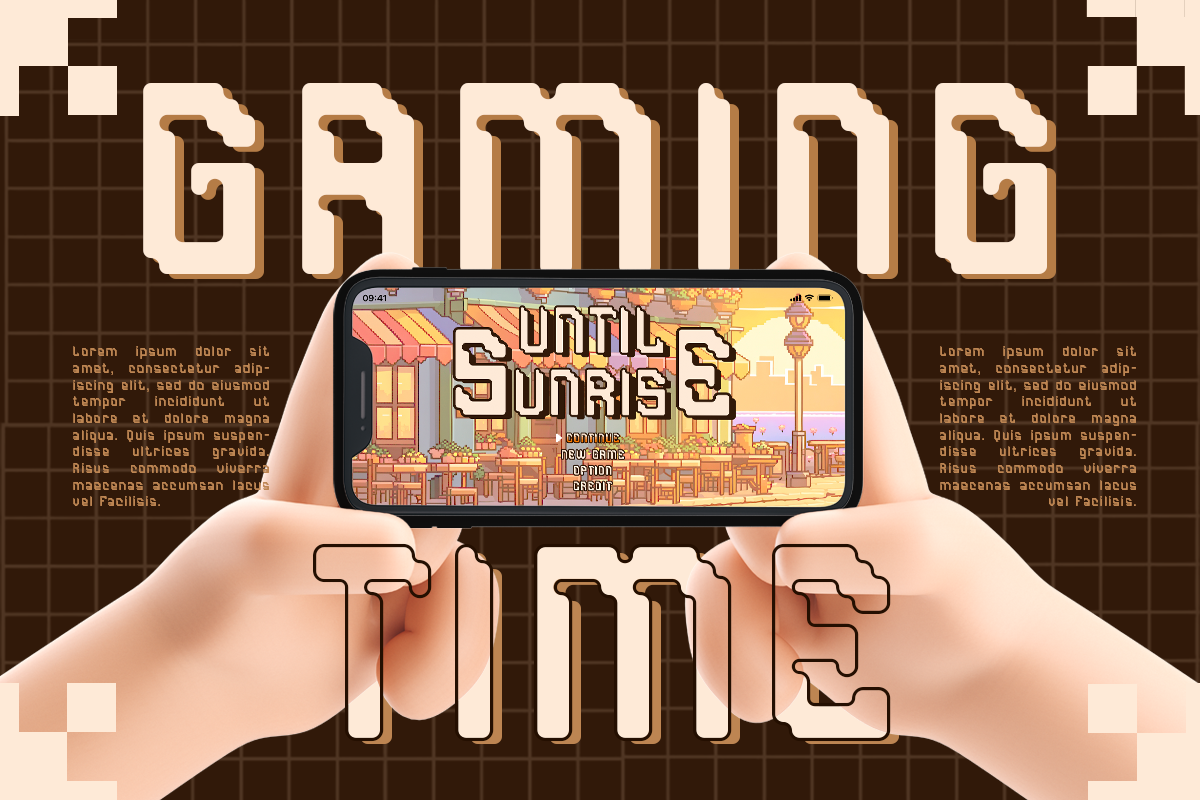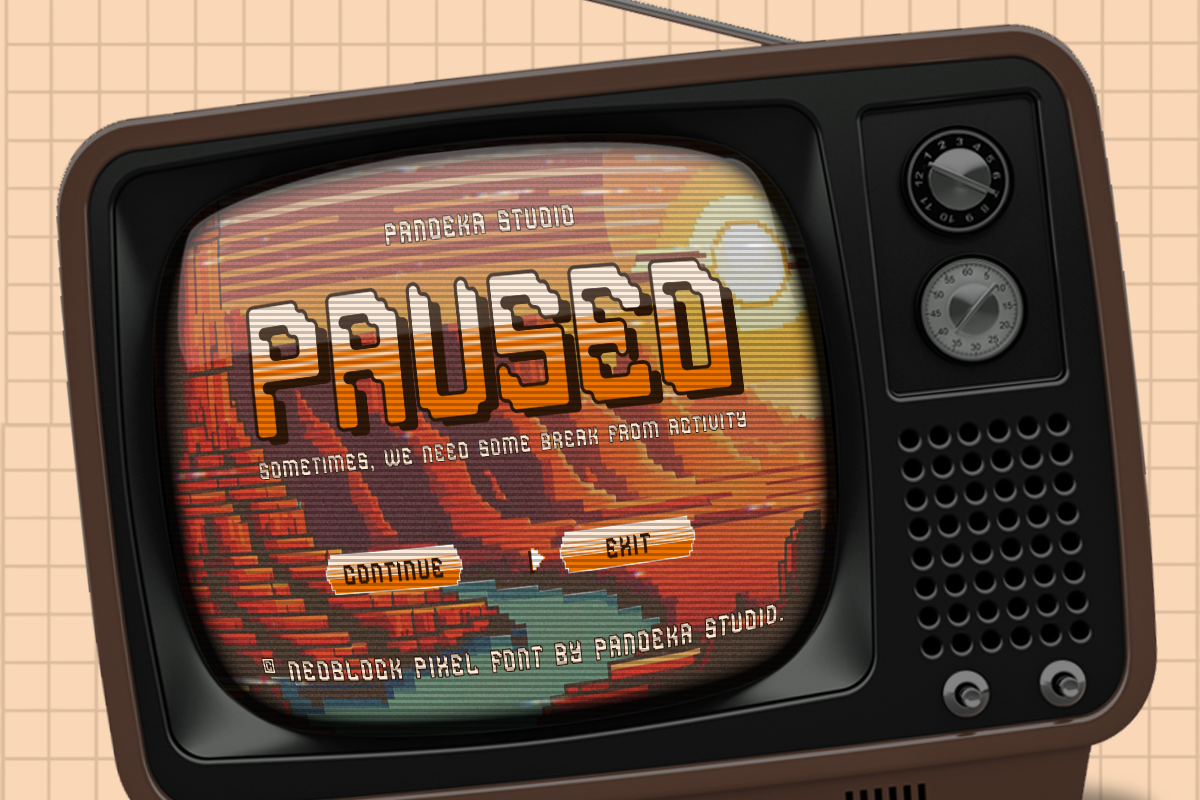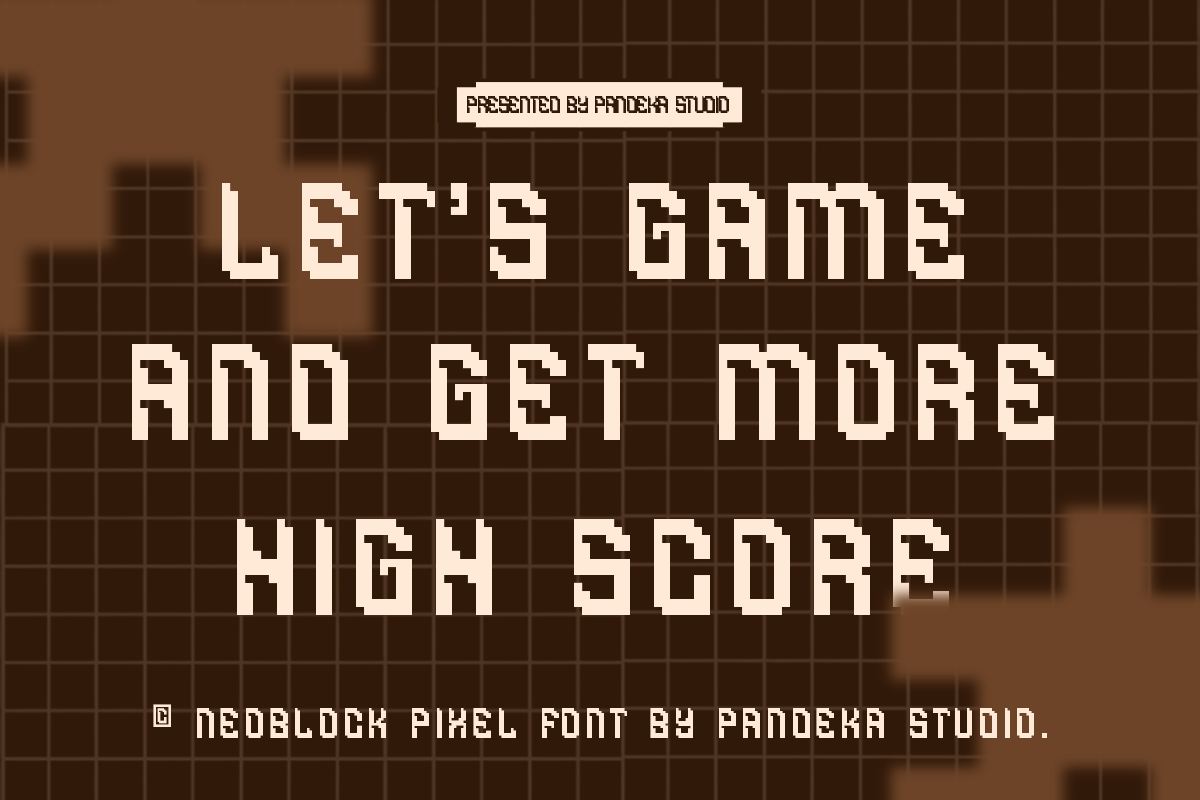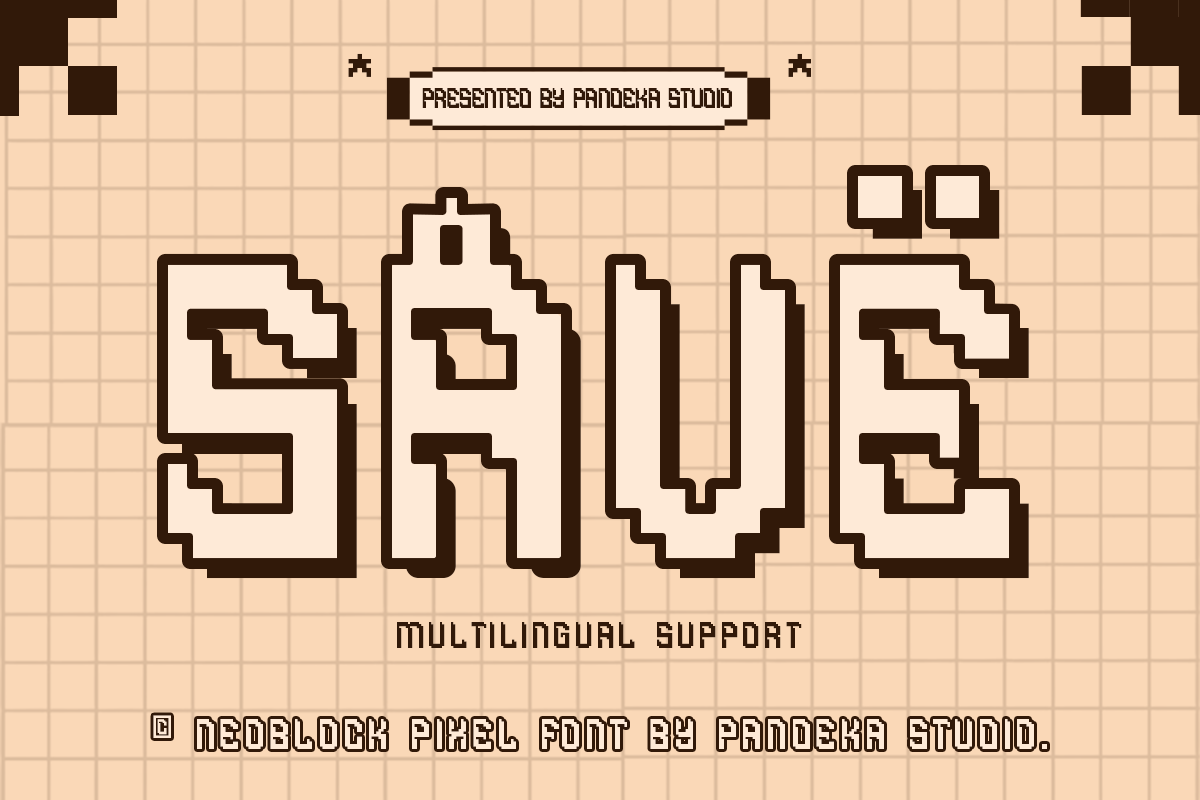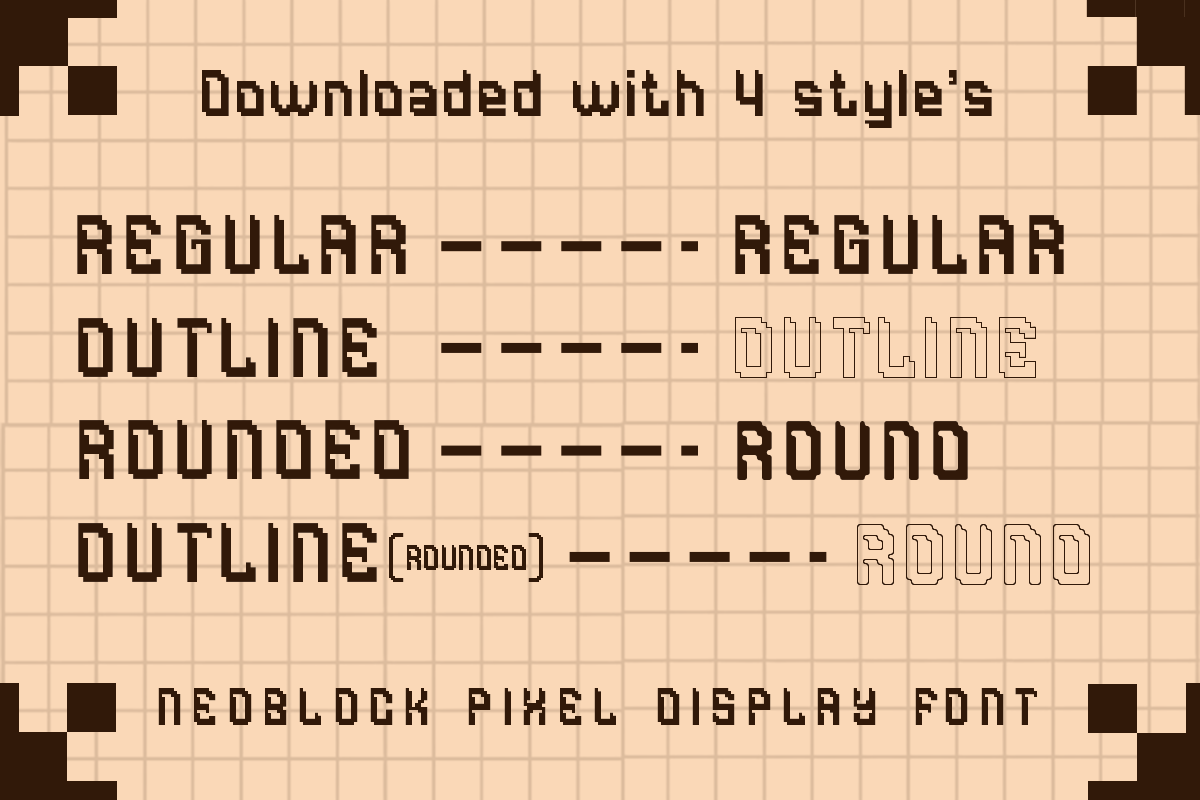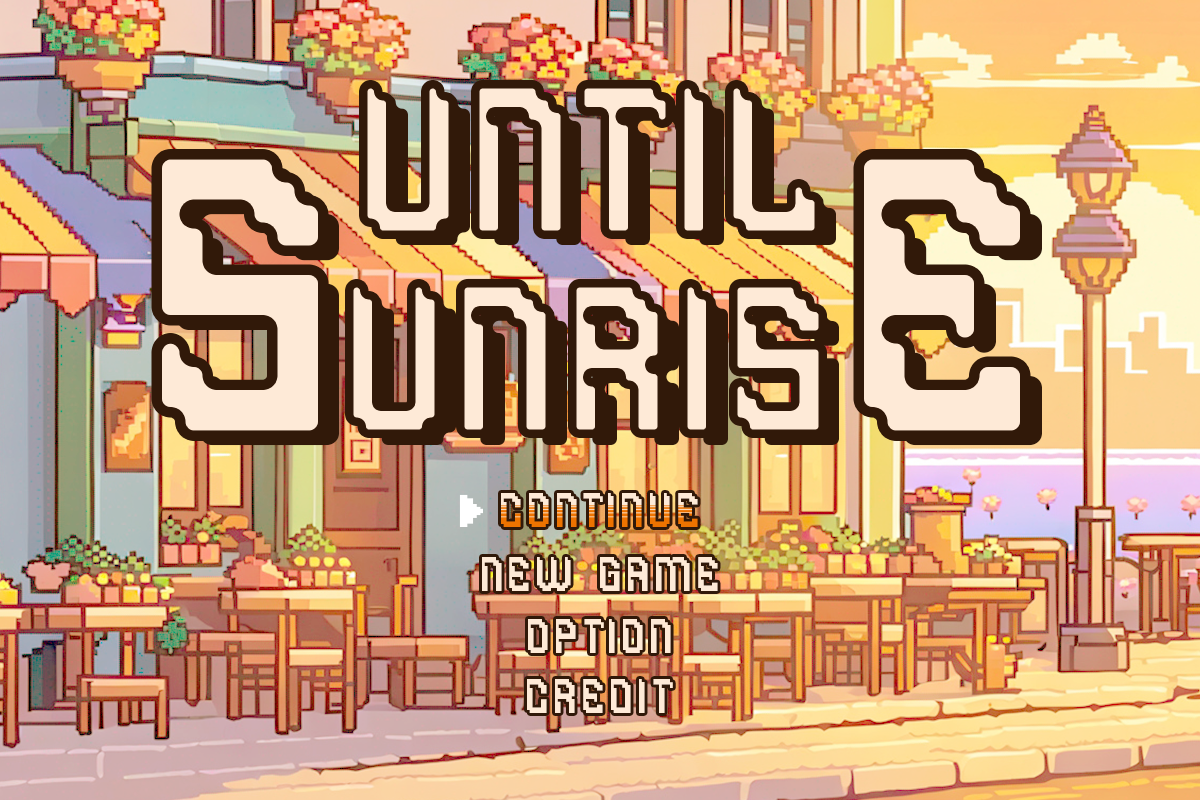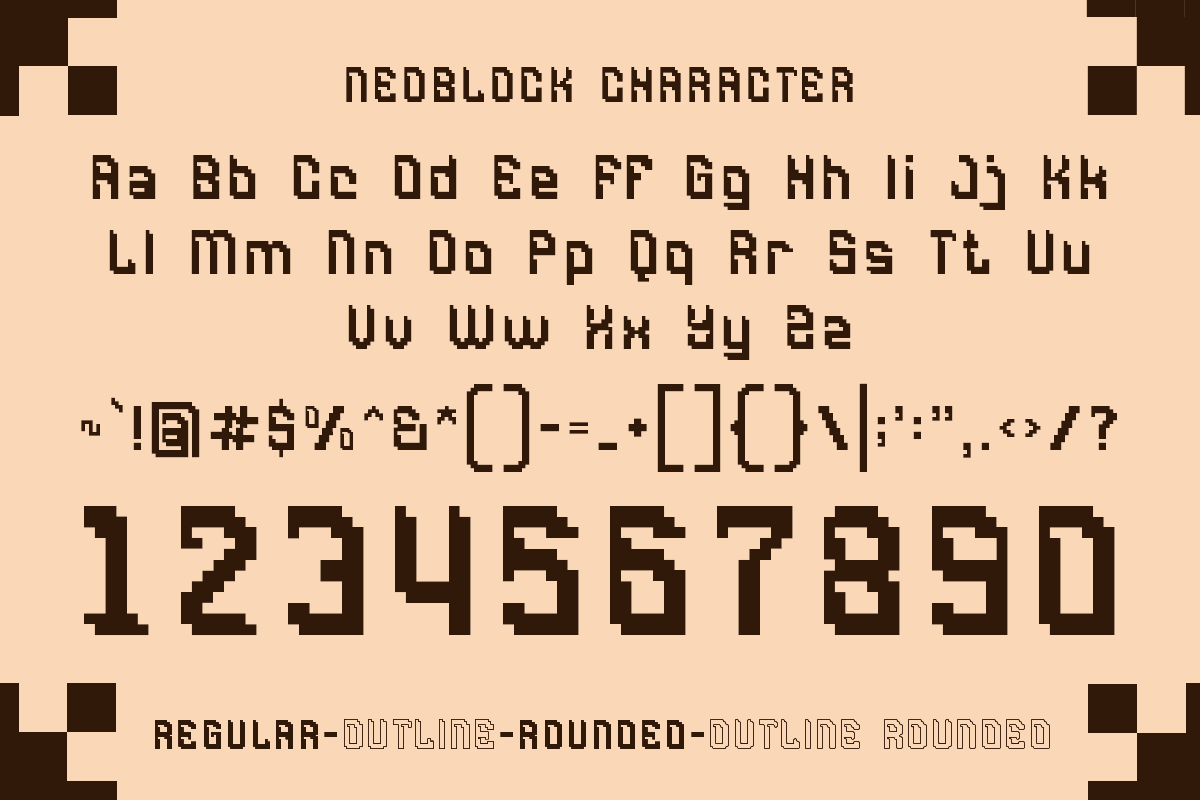
Neoblock - 5 Pixel Font Styles
Neoblock is a pixel-perfect display font designed to capture the essence of retro gaming and digital aesthetics. Combining sharp, blocky shapes with modern readability, Neoblock is ideal for game design, posters, logos, and digital media projects that need a bold and nostalgic pixel style.
This font family includes 5 versatile styles: Regular, Outline, Rounded, and Outline Rounded giving you flexibility to mix and match for a wide range of creative possibilities. Whether you're recreating the retro vibes of classic arcades or adding a touch of digital flair, Neoblock delivers style and precision in every pixel.
- 4 Styles: Regular, Outline, Rounded, and Outline Rounded
- Complete set: Letters, numbers, symbols, and punctuation